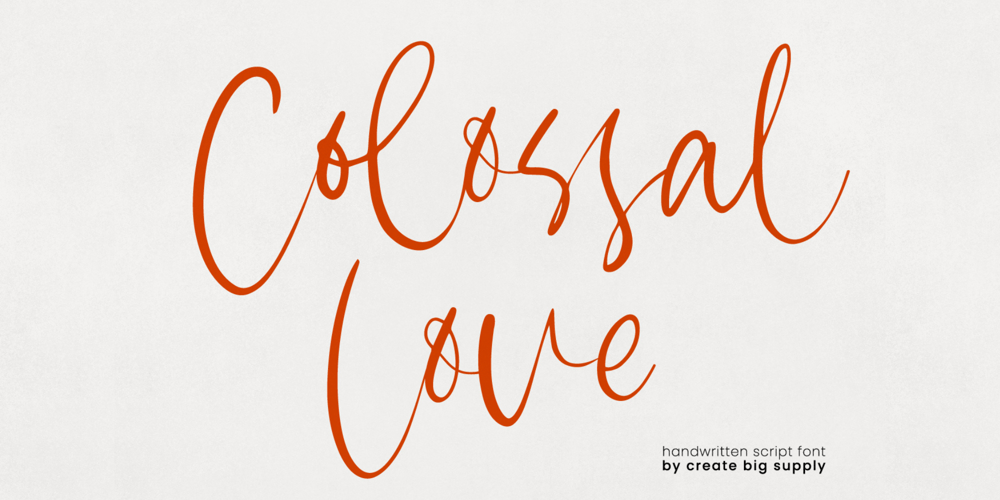
Colossal Love Font Family was designed by Irpan Maulana and published by Create Big Supply. Colossal Love contains 1 styles and family package options. Experience the beauty and authenticity of Colossal Love, a mesmerizing handwritten font that will captivate your audience. With its natural feel and resemblance to real handwriting, Colossal Love adds a personal touch to your designs. Whether you’re creating wedding invitations, stationery art, or eye-catching social media posts, this font will infuse your projects with elegance and charm.Colossal Love features a comprehensive set of uppercase and lowercase letters, allowing you to create versatile typography that suits your creative vision. The font also includes numbers and punctuation, ensuring seamless integration into your designs. Its multilingual support allows you to communicate your message effectively across different languages, making it accessible to a global audience.What sets Colossal Love apart is its extensive collection of ligatures. These ligatures enhance the natural flow of the font, creating seamless connections between letters and giving your text a handcrafted appearance. The result is a unique and authentic look that captures the essence of handwritten elegance.With PUA encoding, accessing the amazing glyphs and ligatures of Colossal Love is effortless. This feature ensures that you can fully explore the font’s potential and unlock its hidden treasures with ease. Let your creativity soar as you experiment with different combinations and give your designs a personal and heartfelt touch.Discover the beauty of Colossal Love and bring a touch of handwritten elegance to your projects. Add a personal and intimate feel to your designs and make a lasting impression on your audience.